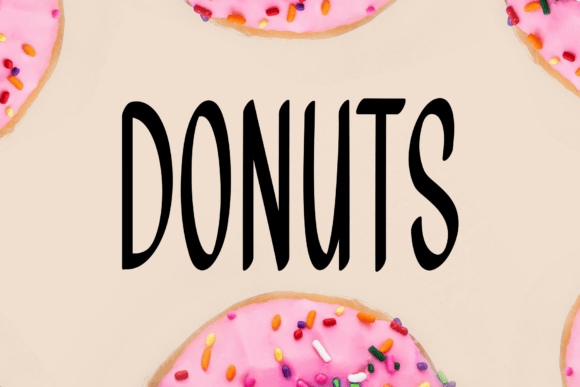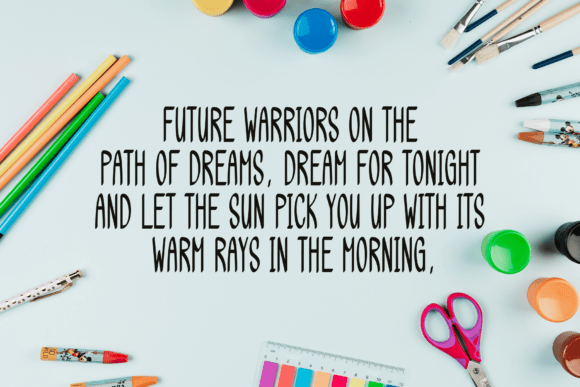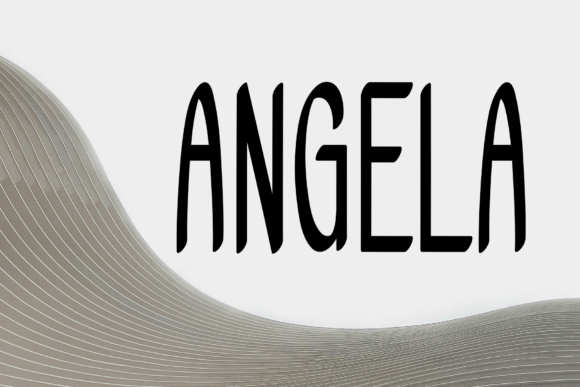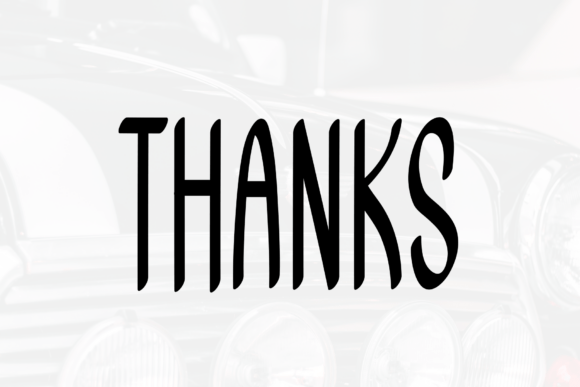
Introducing Background Font: The Charming Handwritten Font for Your Design Projects
Are you tired of using the same old fonts for your design projects? Look no further than Background Font, a charming handwritten font that is sure to add a touch of warmth and personality to your creations. With its smooth strokes and organic lines, Background Font is the perfect choice for designers and crafters looking to evoke a relaxed atmosphere in their work.
The Characteristics of Background Font
Background Font is a unique and eye-catching font that is filled with a sense of heartfelt perfection. Its smooth strokes and organic lines give it a natural and effortless feel, making it perfect for a variety of design projects. The font’s charming handwritten style is reminiscent of a personal letter or a handmade card, adding a touch of warmth and personality to any design.
Whether you’re working on a branding project, creating invitations, or designing social media graphics, Background Font is the perfect choice. Its versatility and charm make it suitable for a wide range of applications, from formal to informal, and from digital to print. Here are just a few ideas for how you can use Background Font in your design projects:
- Branding: Use Background Font to add a personal touch to your brand’s logo, packaging, or marketing materials.
- Invitations: Create beautiful and unique invitations for weddings, parties, or other special events.
- Social Media Graphics: Use Background Font to add a touch of personality to your social media graphics, such as quote graphics, promotional graphics, or event announcements.
- Stationery: Create custom stationery, such as notebooks, journals, or greeting cards, with Background Font.
Why Choose Background Font?
There are many fonts to choose from, but Background Font stands out from the rest. Here are just a few reasons why:
- Unique and Eye-Catching: Background Font is a one-of-a-kind font that is sure to grab attention.
- Versatile: Background Font can be used for a wide range of design projects, from formal to informal.
- Easy to Read: Background Font is clear and easy to read, making it perfect for body text or headlines.
- High-Quality: Background Font is a high-quality font that is designed to look great in any design.
Tips for Using Background Font
Here are a few tips for getting the most out of Background Font:
- Use it with a contrasting background: Background Font looks best when paired with a contrasting background, such as a bold color or a textured image.
- Experiment with different sizes: Background Font can be used at a variety of sizes, from large headlines to small body text.
- Pair it with other fonts: Background Font can be paired with other fonts to create a unique and interesting design.
Background Font is a charming handwritten font that is sure to add a touch of warmth and personality to your design projects. With its smooth strokes and organic lines, Background Font is perfect for a variety of applications, from branding to social media graphics. Whether you’re a designer or a crafter, Background Font is a great choice for anyone looking to add a little something special to their work.